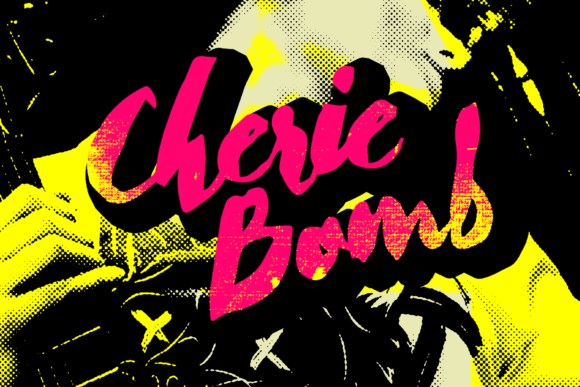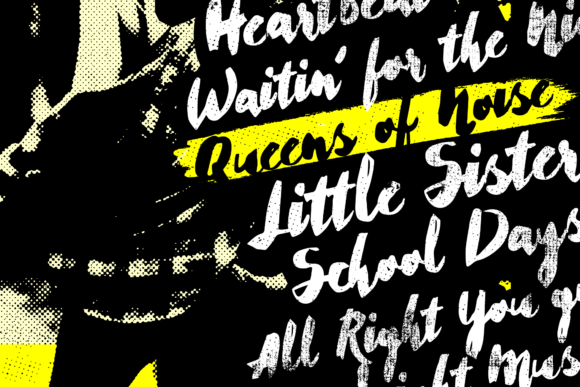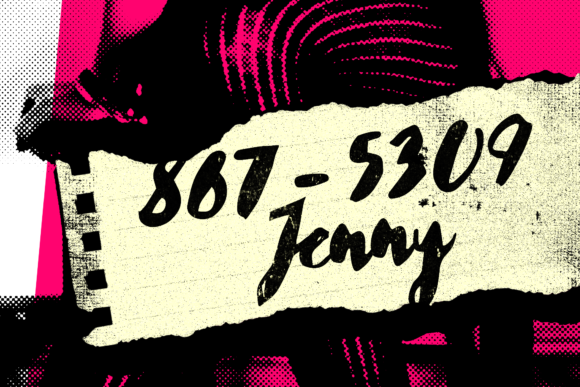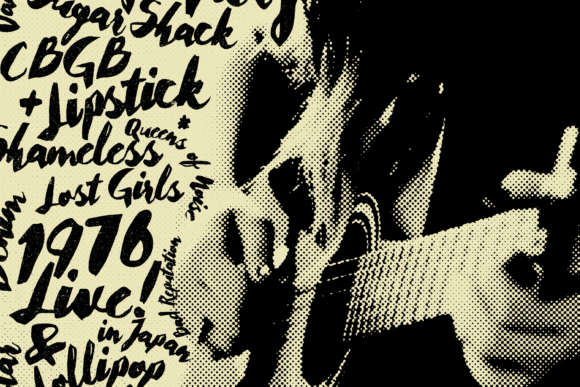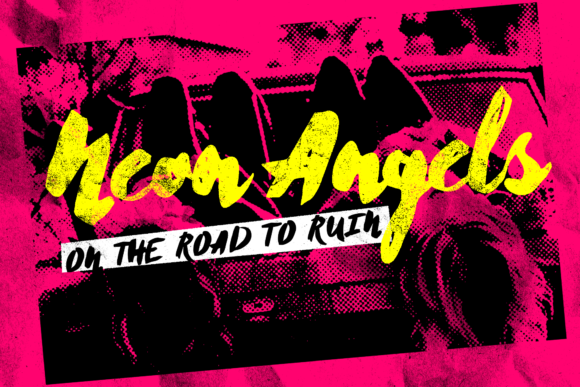
Cherie Bomb Font
About Cherie Bomb Font
Cherie Bomb is a beautiful handmade brush font with a punk-rock feeling, but with personality and heart. This handwritten script will allow you to create stunning typographic designs quickly and easily.